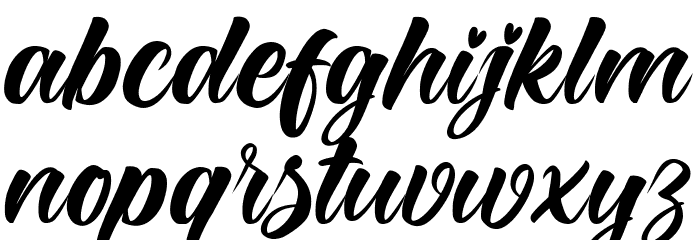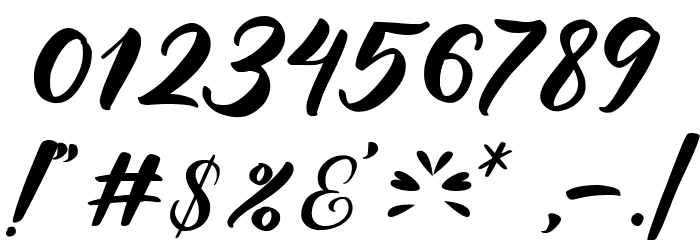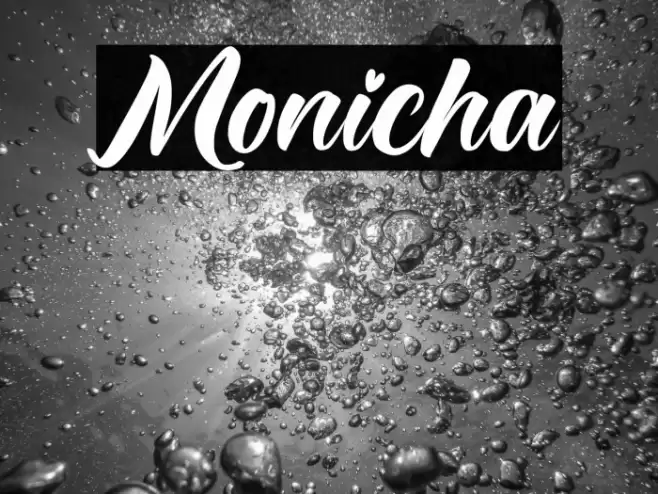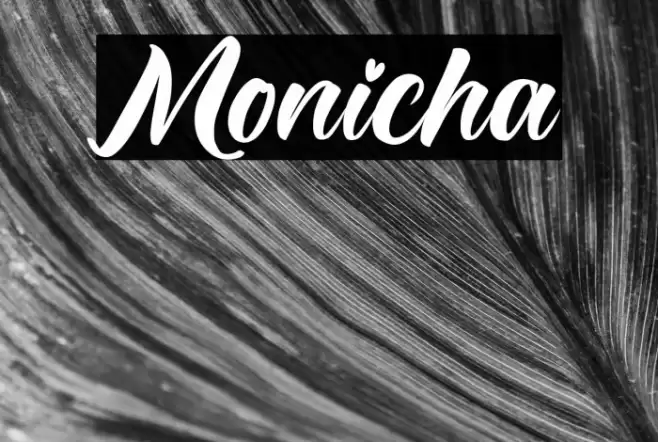
Monicha Font
This font features a bold and expressive script style with a flowing, cursive design. The characters are connected, creating a sense of movement and elegance. The uppercase letters are slightly larger and more pronounced, while the lowercase letters maintain a consistent flow. The numbers and special characters are designed to match the overall style, adding a cohesive look. The font's strokes are thick, providing a strong visual impact, and the contrast between thick and thin strokes is medium, enhancing readability while maintaining a decorative flair.
A bold, cursive script font with medium contrast and flowing characters.
- Proposed Projects: Ideal for wedding invitations, branding, logo design, and elegant packaging.
- Use Case: Logos, Invitations, Branding